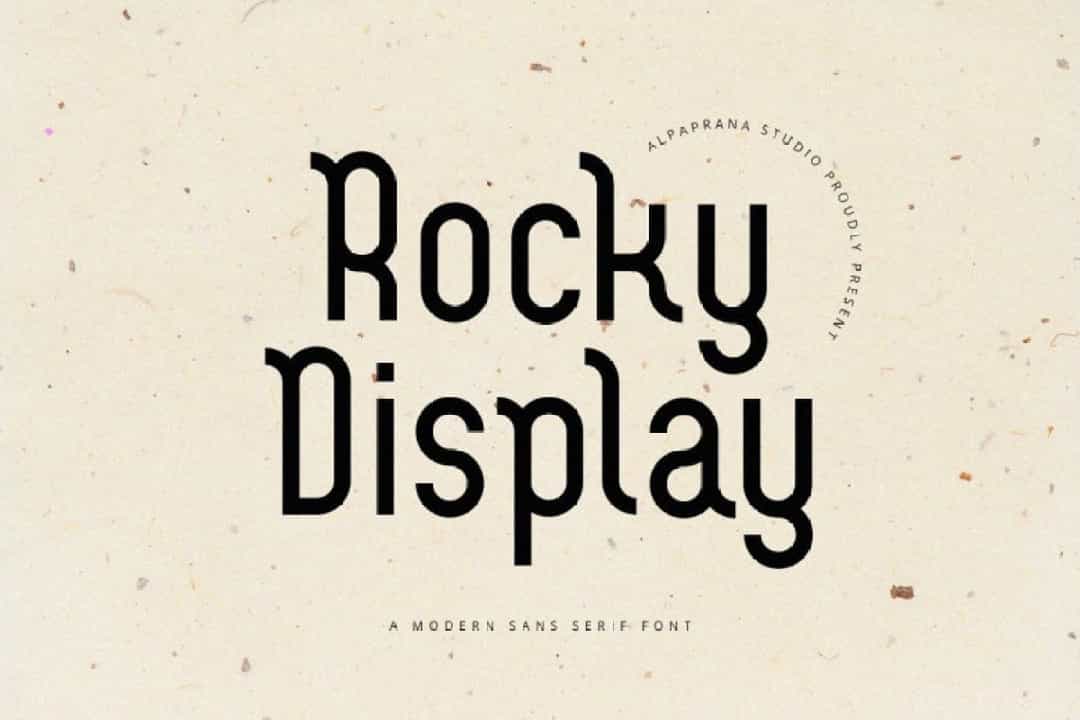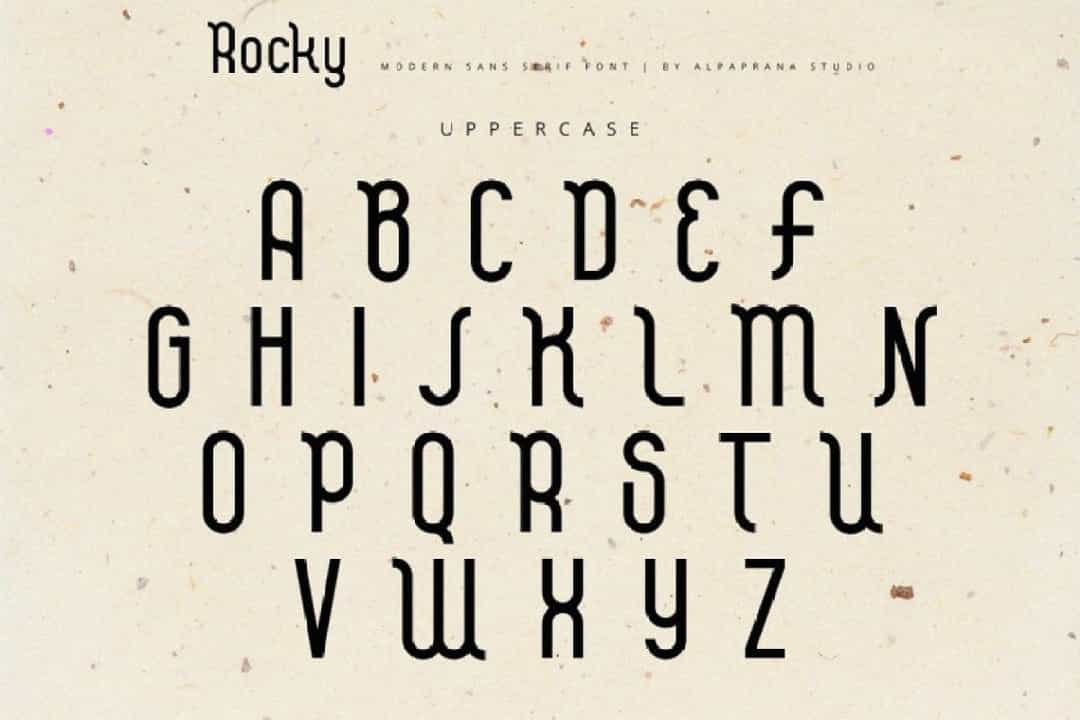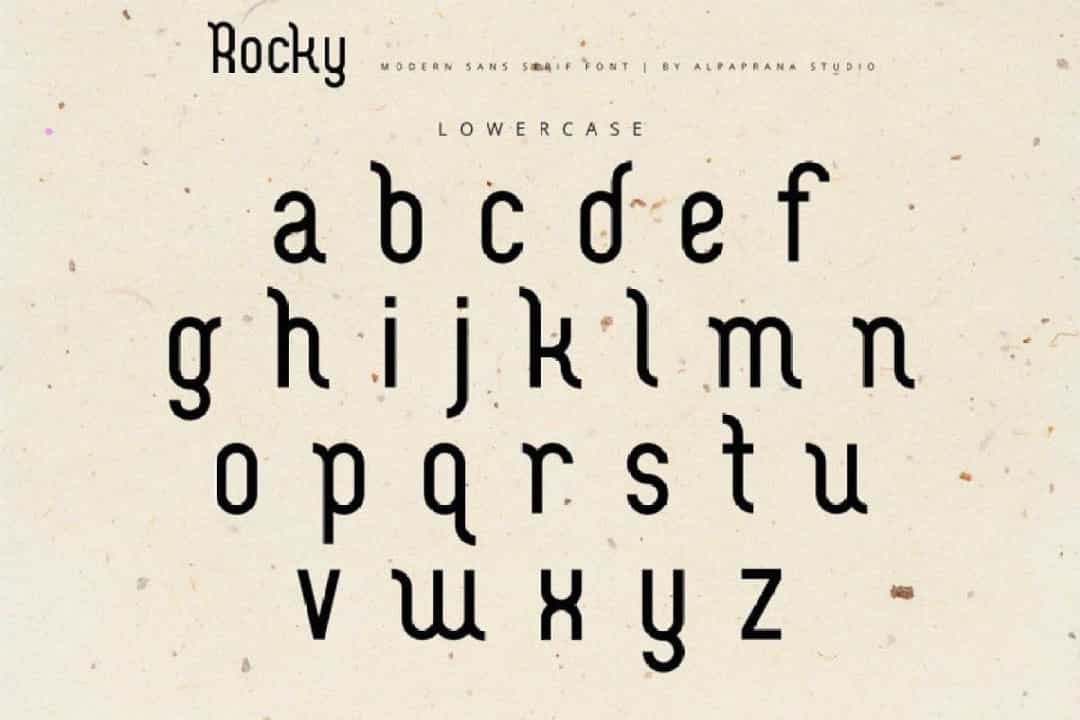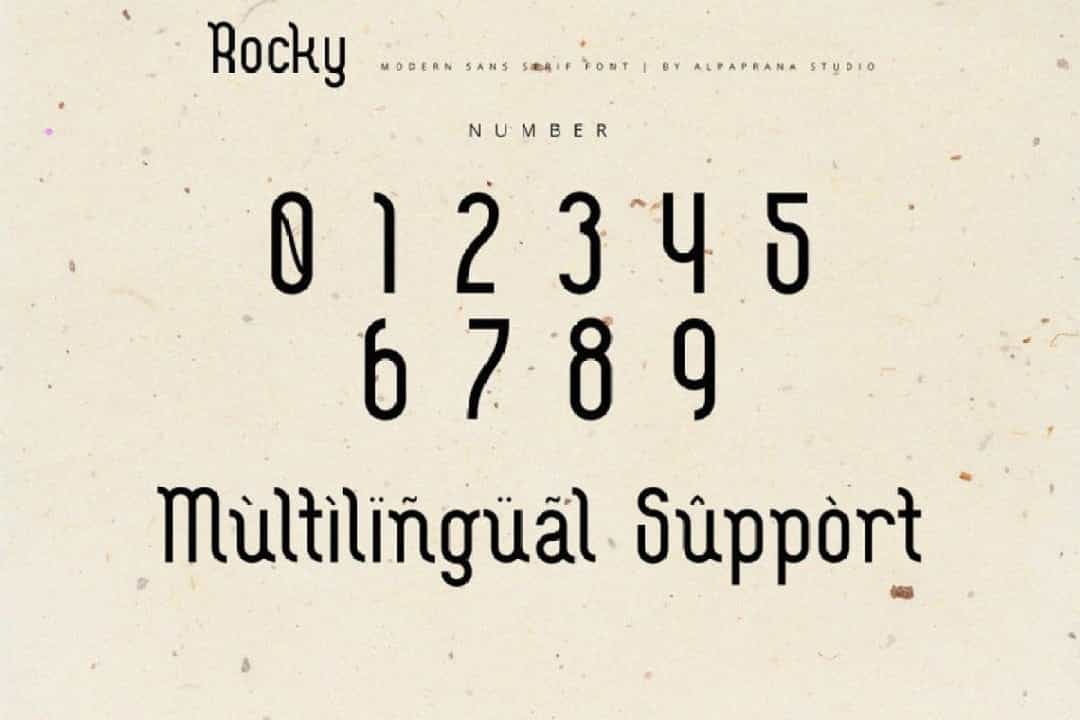
Rocky Display is an elegant sans-serif font with a casual yet natural aesthetic, ideal for creating logos, branding and designing logotypes suited for logotypes such as clothing Posters, magazine packaging bags for shopping purposes, posters T-shirts photography projects special events as well as special event promotion campaigns and other design projects.